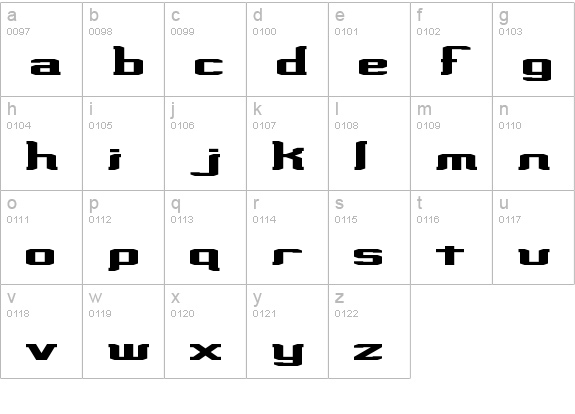
Variance BRK Font Details
Variance BRK is a bold and dynamic font that is sure to make a statement in any design project. With its unique and edgy letterforms, this font exudes a sense of confidence and modernity. Its sharp angles and distinctive curves create a visual impact that captures attention and adds a touch of sophistication to any text. The versatility of Variance BRK makes it suitable for a wide range of applications. Whether you're designing a logo, creating a poster, or crafting a website, this font will elevate your design and give it a professional and polished look. Its clean lines and bold strokes ensure that your message is clear and easy to read, while its stylish aesthetic adds a touch of creativity and flair. One of the best things about Variance BRK is that it is available for free! Yes, you read that right. This incredible font is freely available to download at FontsMarket.com. You can now access this font without any cost, making it a fantastic option for designers on a budget or anyone looking to add a unique and eye-catching font to their collection. So why wait? Download Variance BRK today and start experimenting with its endless possibilities. Whether you're a seasoned designer or just starting out, this font will undoubtedly inspire and enhance your creative projects. With its bold and dynamic nature, Variance BRK is sure to make a lasting impression and elevate your designs to new heights. Get your hands on this free font now and watch your designs come to life!